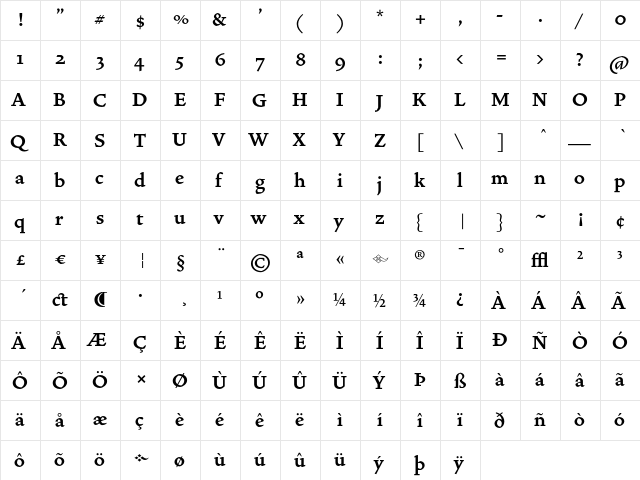
VendettaBold Regular
Design Context for VendettaBold Typeface
VendettaBold offers clean, dependable letterforms without strong stylistic allegiance, making it a practical choice for designers who need flexibility. Its bold stroke weight gives it real presence on the page.